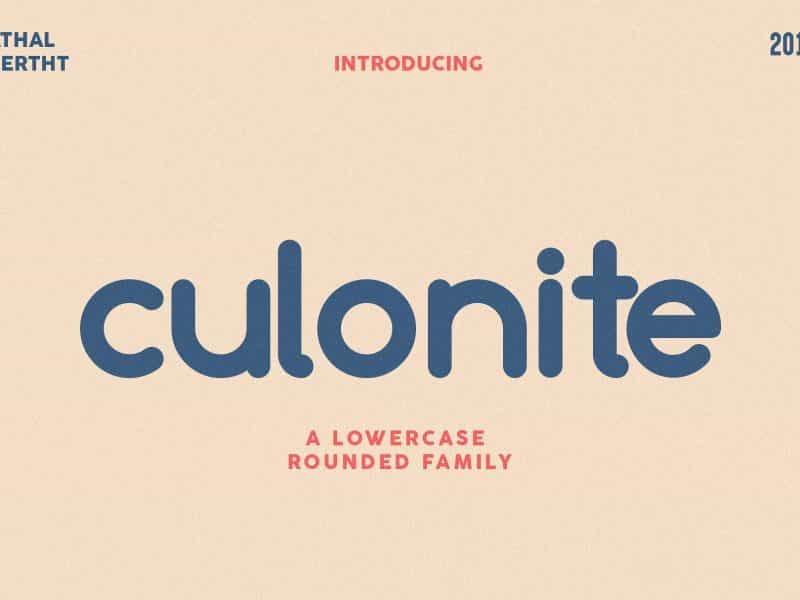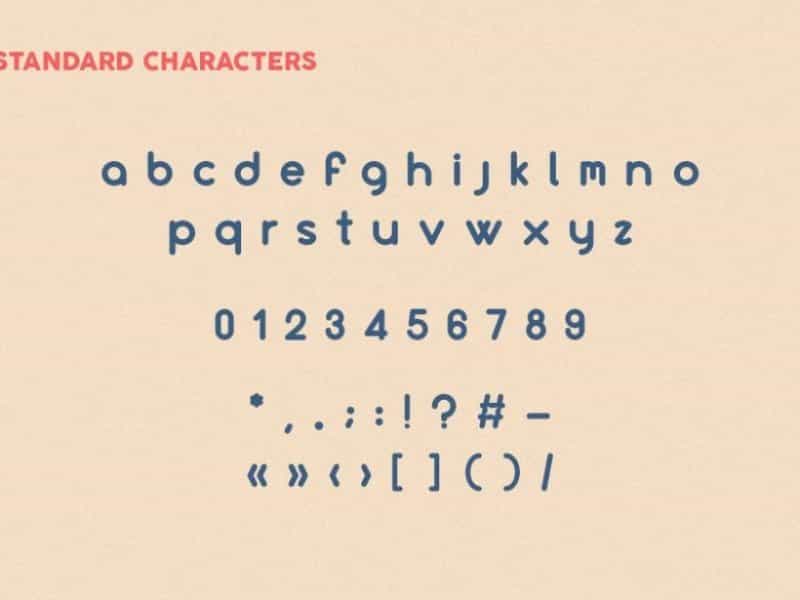
Introducing Culonite Typeface. It is an athal designed. Although this font is a premium one and is sold on creativemarket, it is great that today it is free for download. Culonite is a rounded sans serif typeface family created with a cheeky must not capitalize appearance. There are 4 font weights with light, regular, semibold and bold. It has many different language character sets.